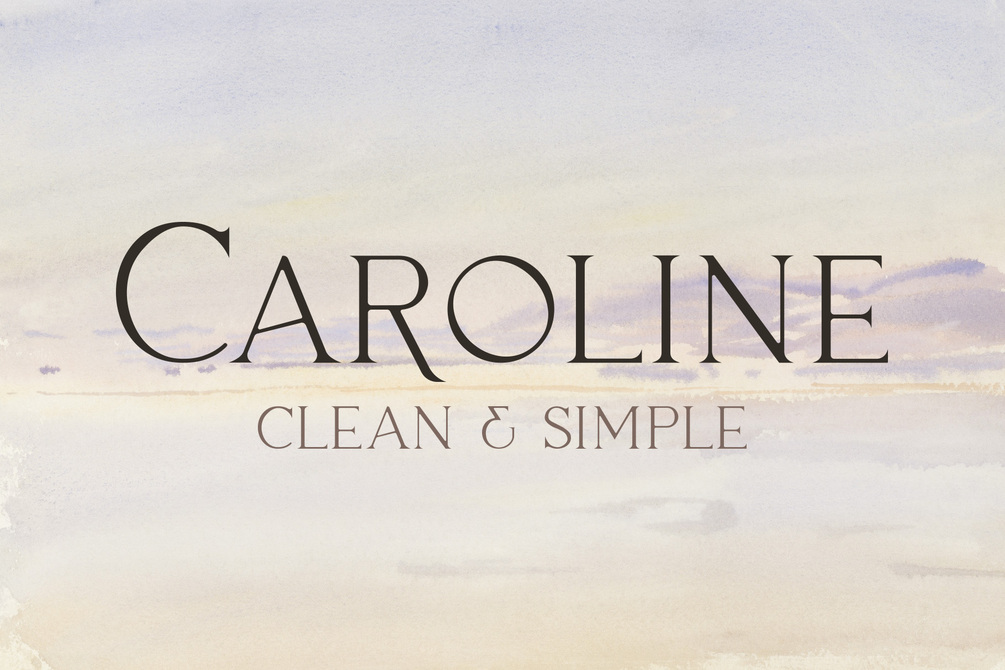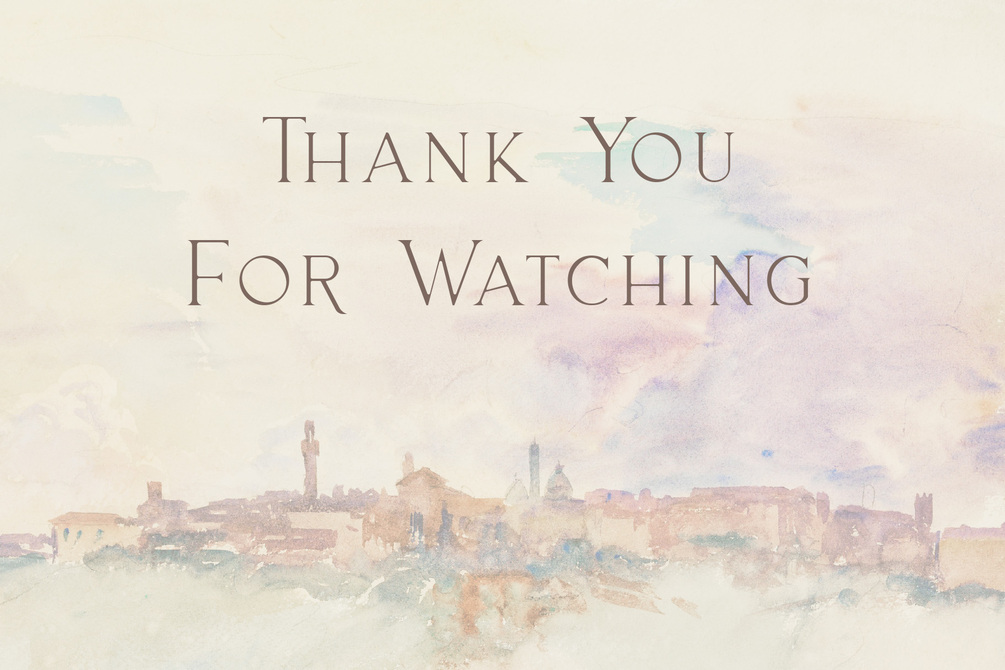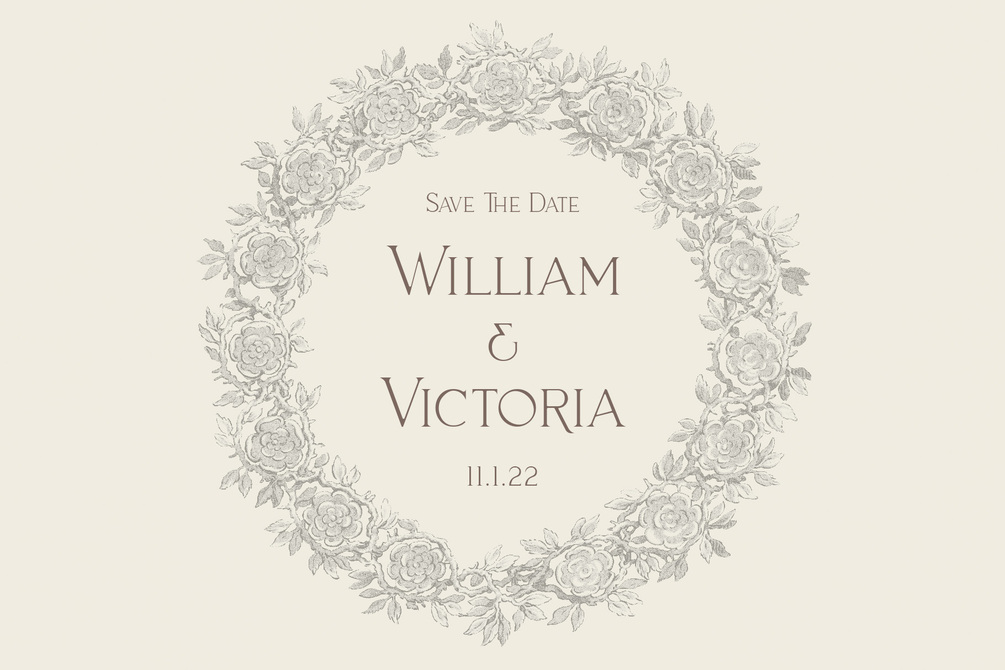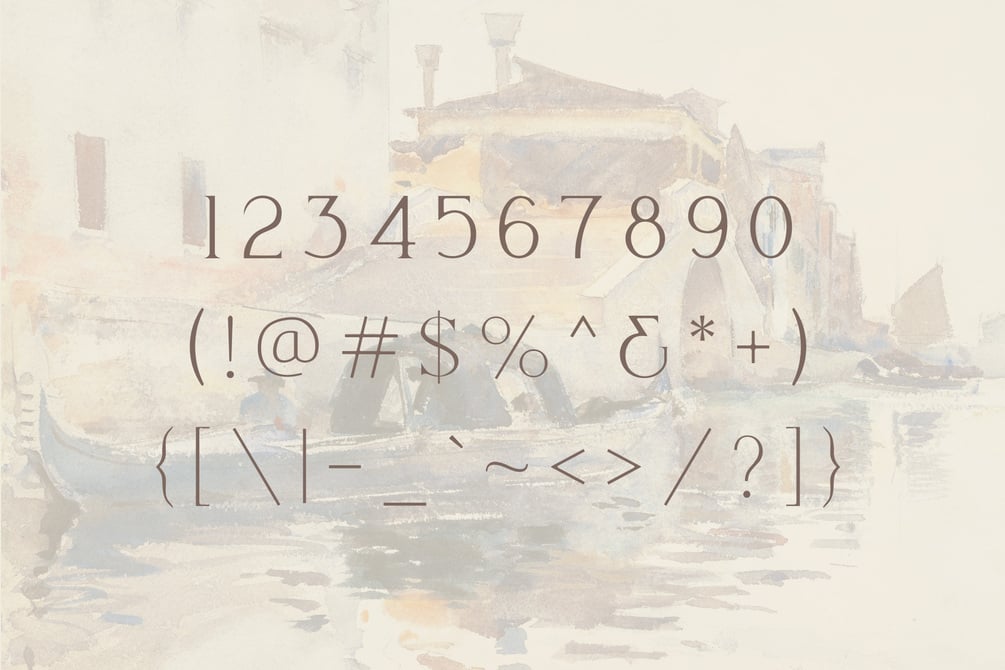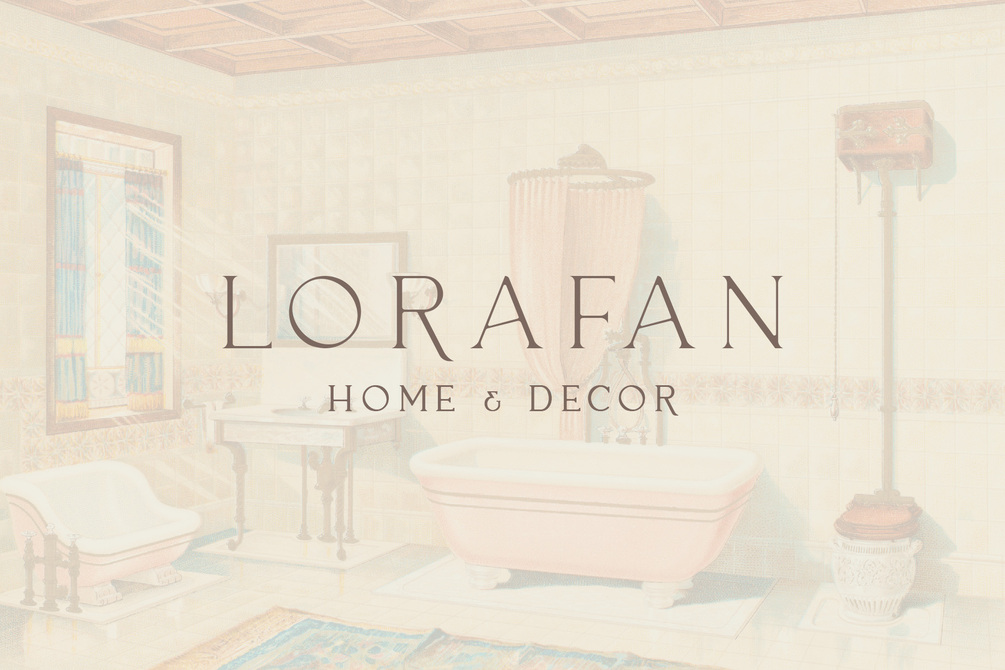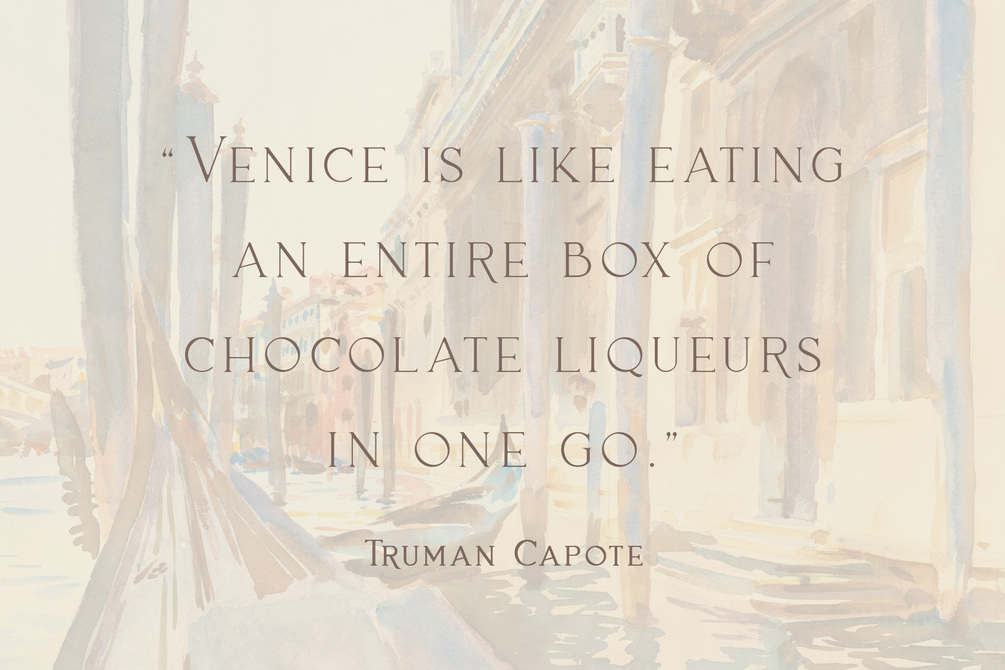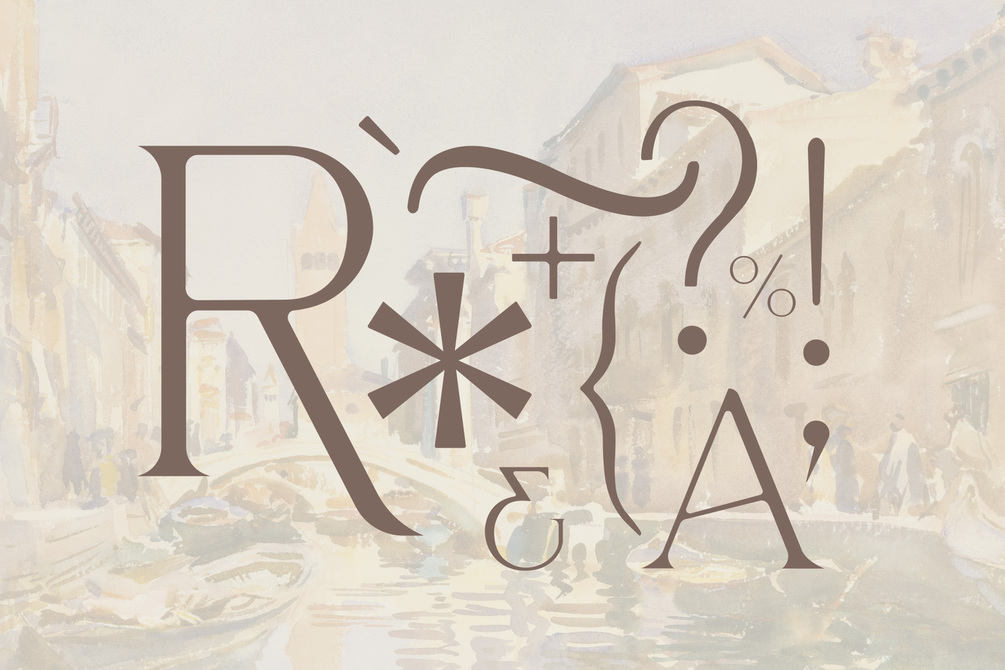
Caroline - Minimal Modern Typeface
Caroline is a timeless serif typeface perfect for clean, elegant, and minimal designs. Caroline is perfect for projects such as: branding, photography, invitations, fashion, magazines, posters, advertisements, postcards, wedding invitations, quotes, blog header, books, websites, etc. Not only does Caroline look great by itself, it also pairs beautifully with script, signature, and handwriting typefaces.